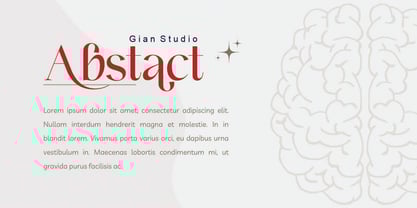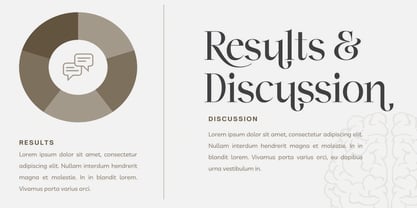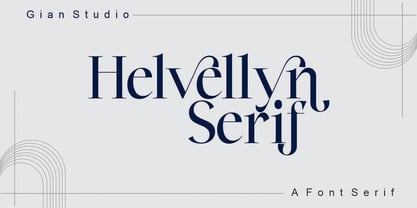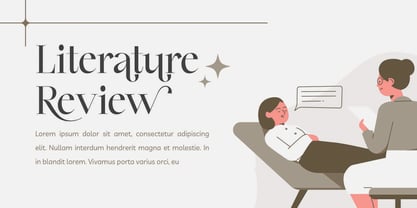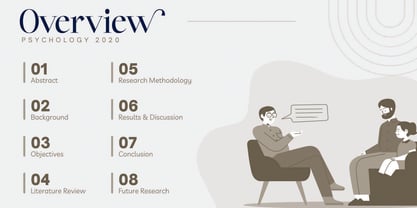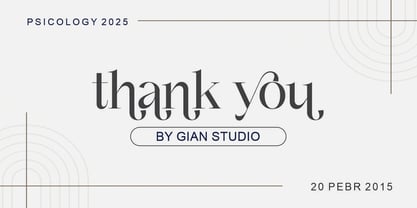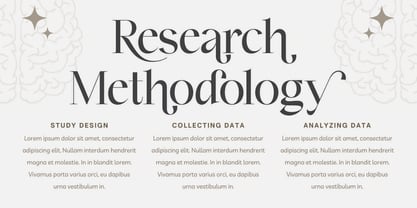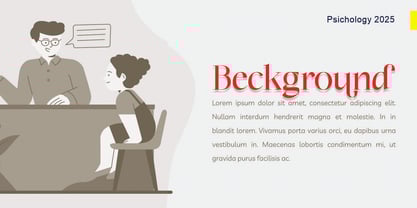
Helvellyn Serif
by Gian Studio
The Helvellyn Serif Font Family was designed by Yusliana M Isa and published by Gian Studio. Helvellyn Serif contains 1 styles.
Present to you for New Modern Helvellyn Serif!
Helvellyn Serif is a sophisticated ligature and alternate Serif from us. This typeface has been made carefully to make sure its premium quality and luxury feel. The ligatures and alternates makes this typeface unique and stands out rather than the regular Serif font.
This font is very suitable for logo, headline, tittle, and the other various formal forms such as invitations, labels, logos, magazines, books, greeting / wedding cards, packaging, fashion, make up, stationery, novels, labels or any type of advertising purpose.
Features :
Ligatures & Alternates
Designers: Yusliana M Isa
Publisher: Gian Studio
Foundry: Gian Studio